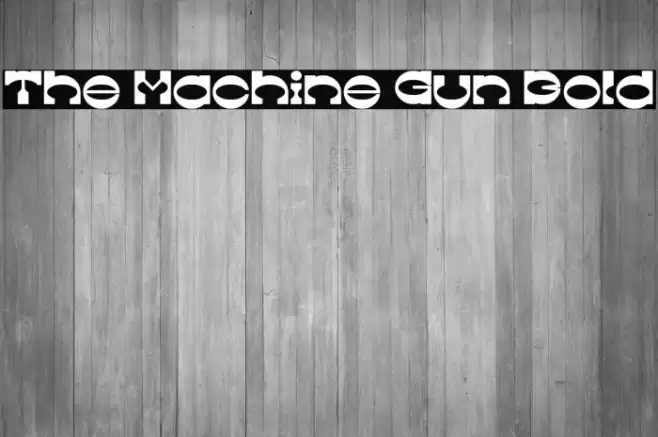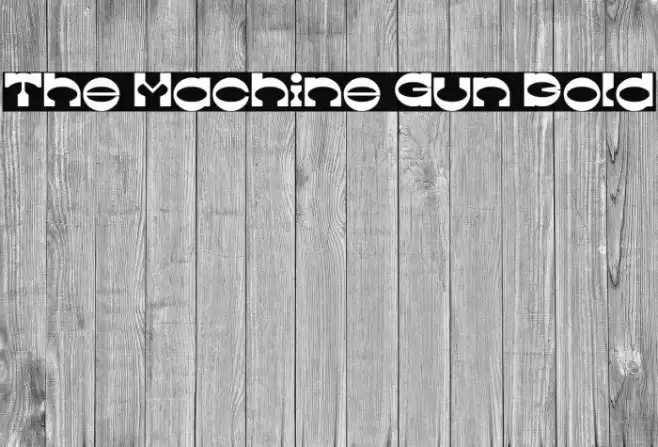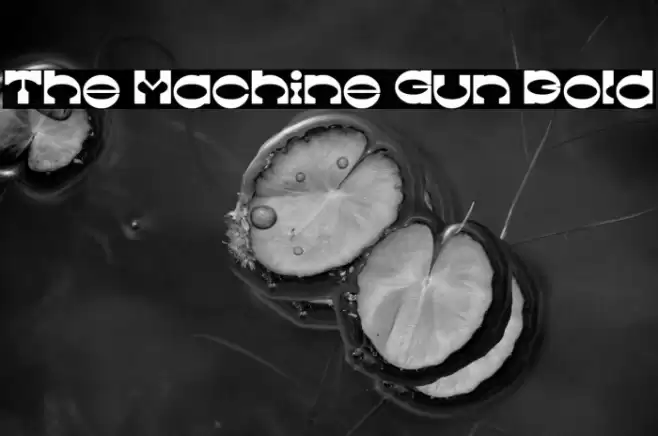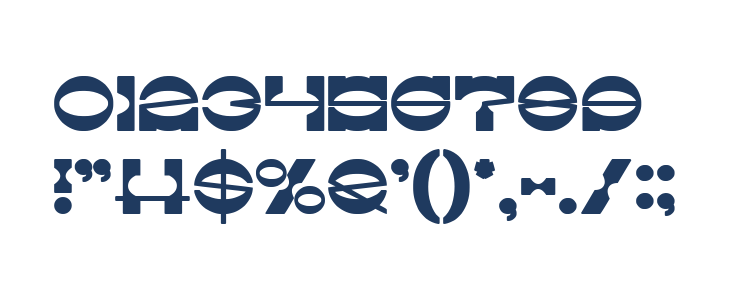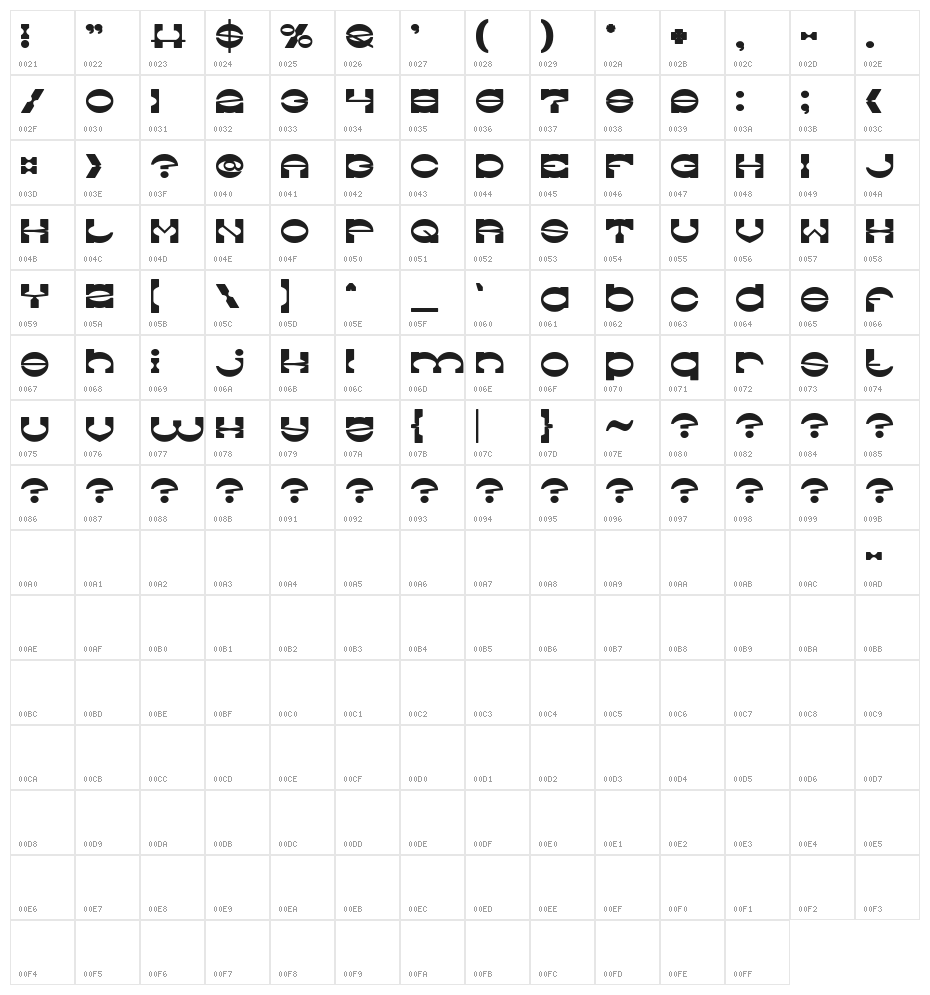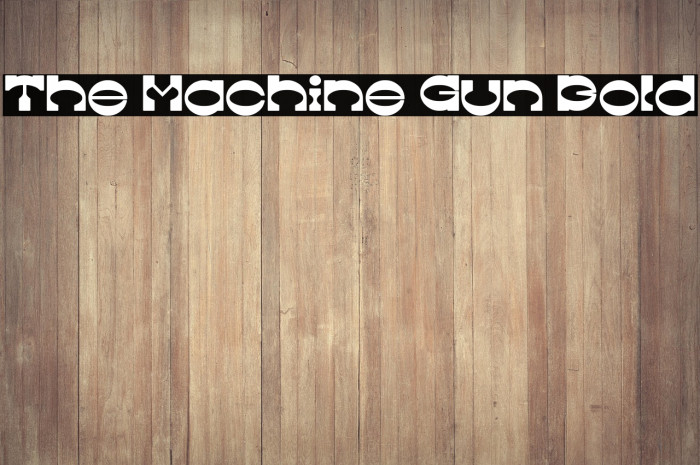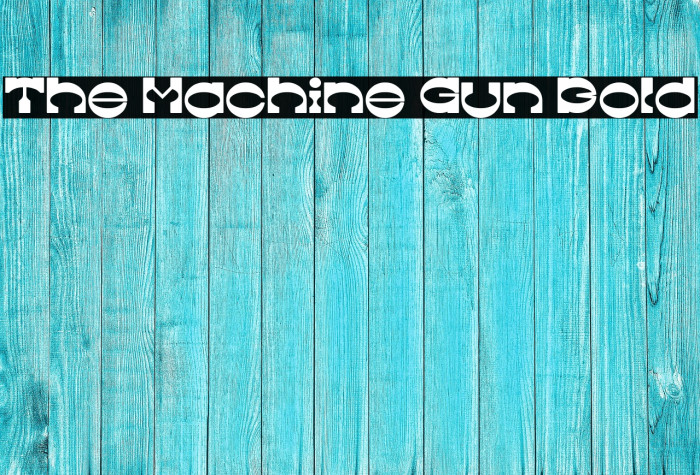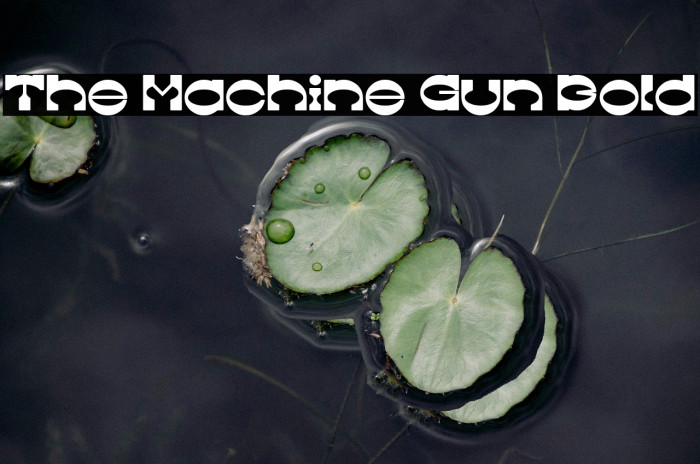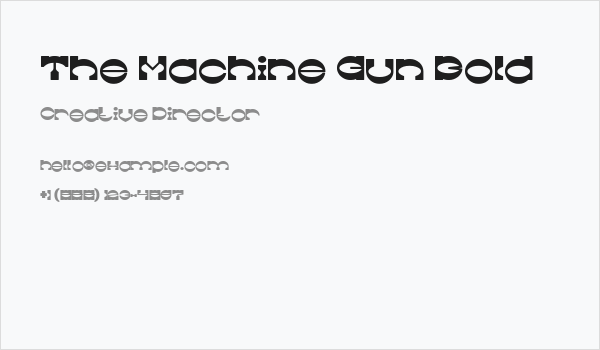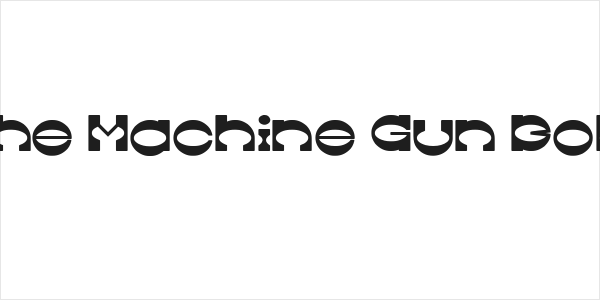
The Machine Gun Bold Font
The Machine Gun Bold Description
This font features a bold and geometric design with a futuristic and industrial feel. The characters are constructed with thick, solid lines and sharp angles, creating a sense of strength and modernity. The uppercase and lowercase letters maintain a consistent style, with unique cutouts and shapes that give the font a distinctive look. The numerals and special characters follow the same design principles, ensuring a cohesive appearance across all glyphs. This font's boldness and unique style make it stand out, ideal for projects that require a strong visual impact.
A bold, geometric font with a futuristic and industrial style from Uncategorized fonts.
- Proposed Projects: Ideal for branding, posters, album covers, and any project needing a strong, modern aesthetic.